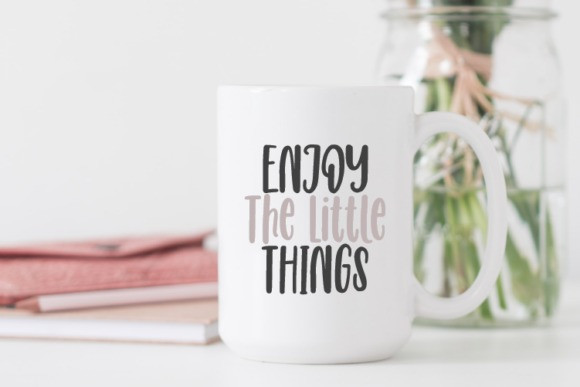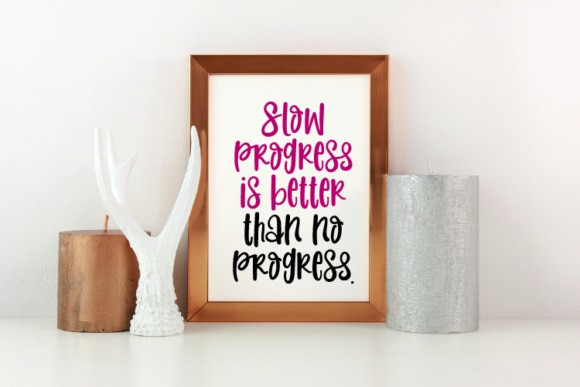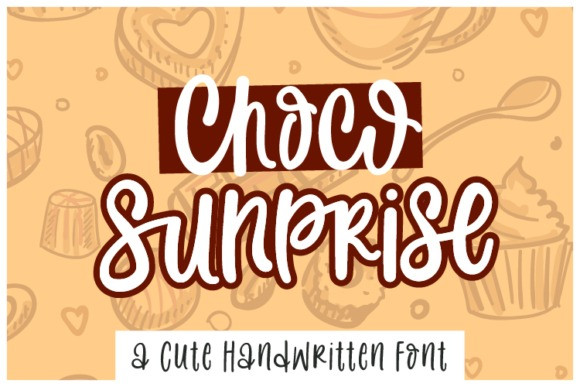
Choco Sunprise Font
Choco Surprise Script Font is a quirky and relaxed handwritten font. Whatever the topic, this font will be a wonderful asset to your font library, as it has the potential to enhance any creation!